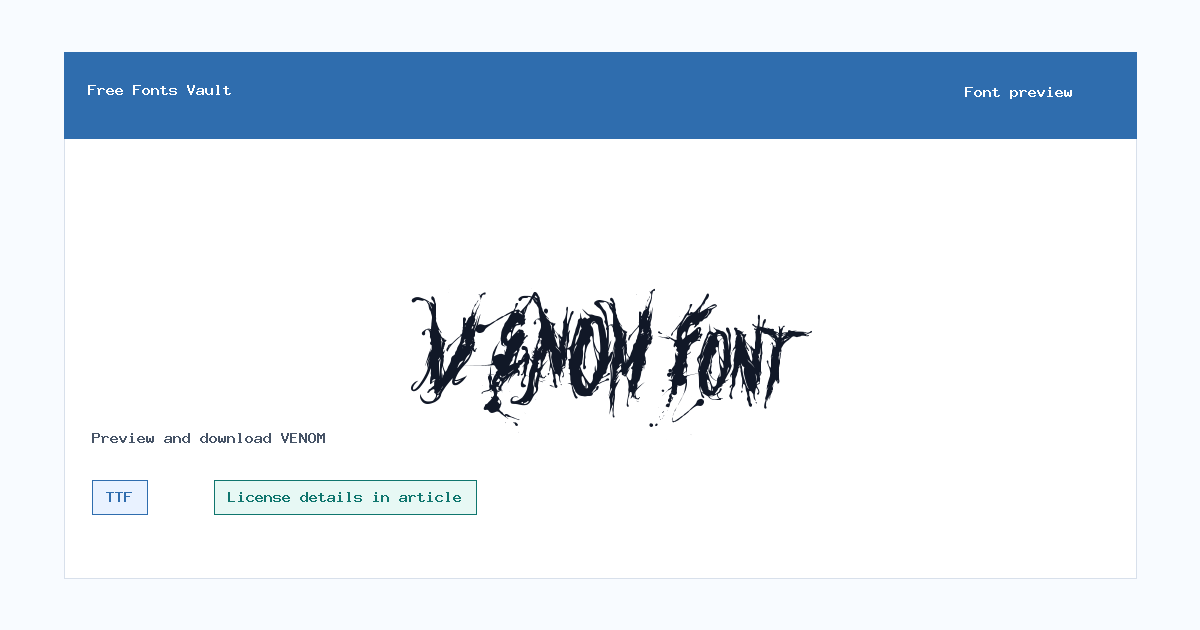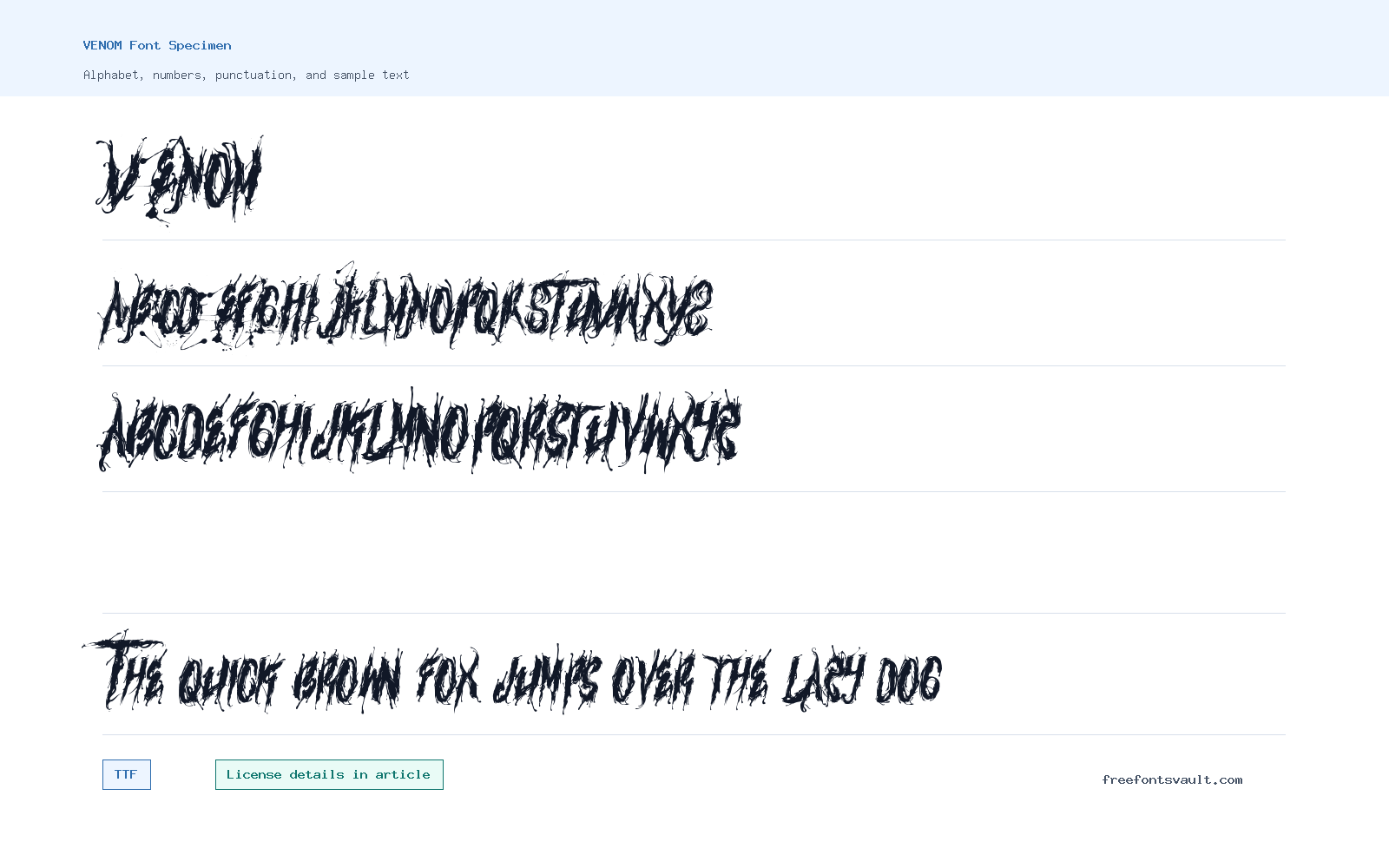
VENOM
VENOM font.
VENOM is a dark display font made for short, high-impact words. Its sharp, aggressive look works best when you need a spooky title, a monster-themed heading, or a dramatic graphic rather than clean everyday text.
About VENOM Font
Because this is a display font, it is strongest at large sizes. Try it with one to four words in the preview tool, especially names, titles, and short phrases. Avoid using it for paragraphs, small captions, legal copy, or anything that needs fast reading. If your design refers to a known character, film, comic, or franchise, make sure you have the rights to use those names and visual references.
- Aggressive horror-style display look suited to short titles and poster lettering
- Spooky posters and Halloween graphics
- Metal, monster, horror, and comic-inspired title treatments
Use VENOM for large display text, not body copy. Test uppercase words, spacing, and outlines in the preview before downloading. For commercial or trademark-sensitive projects, confirm both the font license and any character, movie, comic, logo, or brand rights involved. Keep VENOM to one or two dramatic words and let the lettering carry the mood. It works best with high contrast, dark backgrounds, rough textures, or poster-style lighting, while a simpler companion font should handle dates, descriptions, credits, and other readable details.
No. VENOM is best for short display text such as titles, posters, thumbnails, and dramatic headings. It can become hard to read in paragraphs or small sizes.